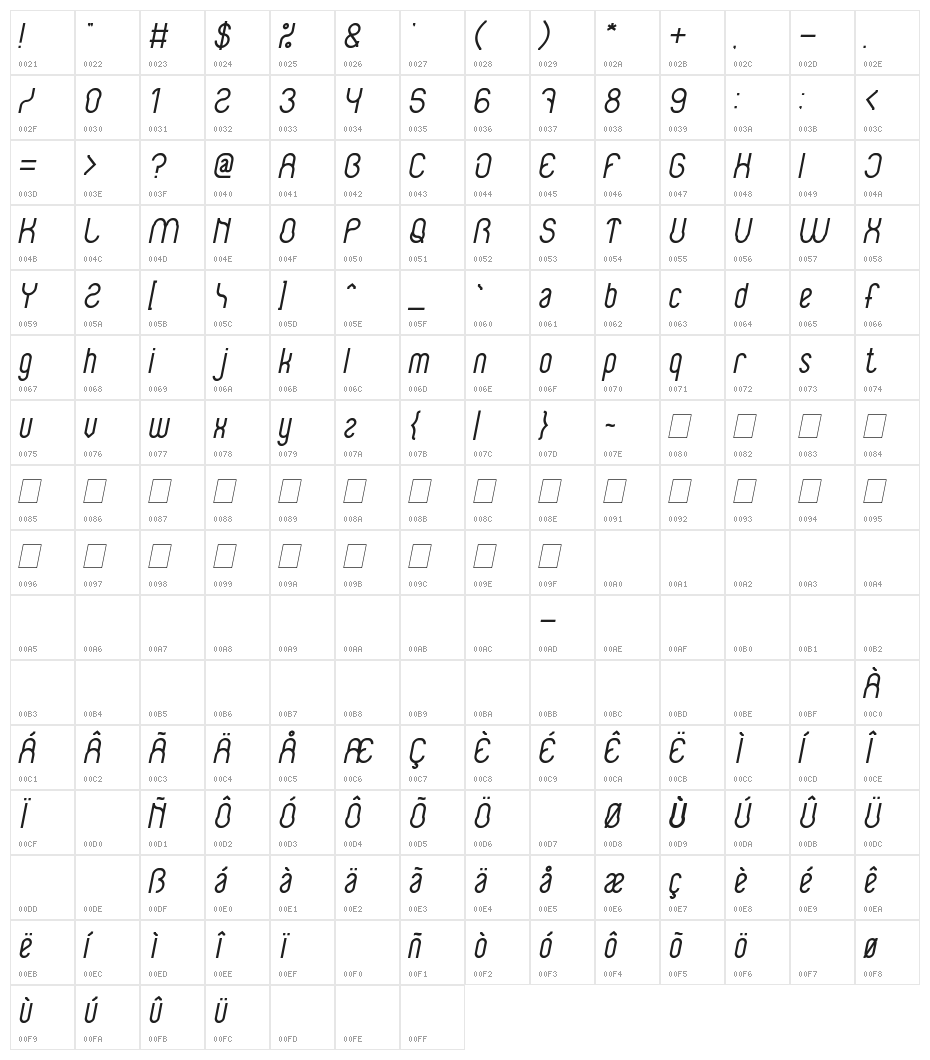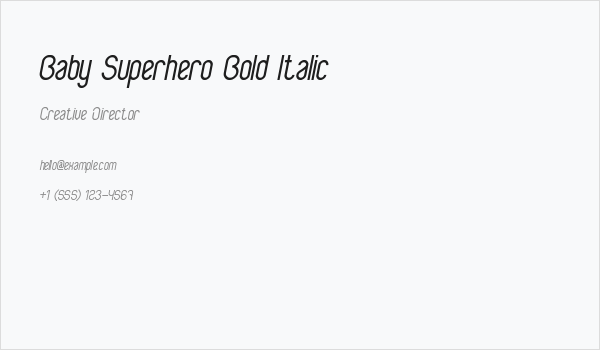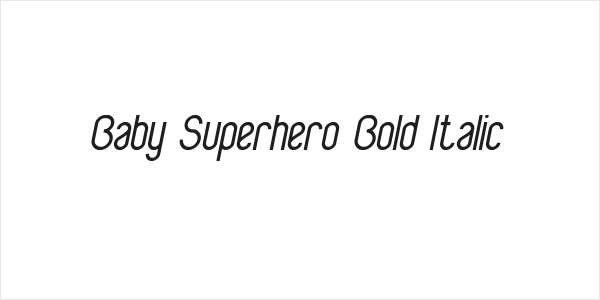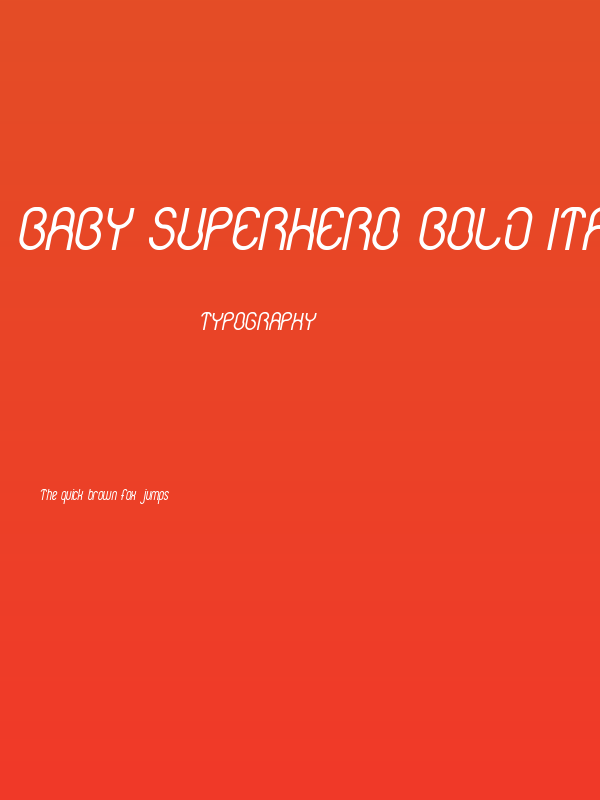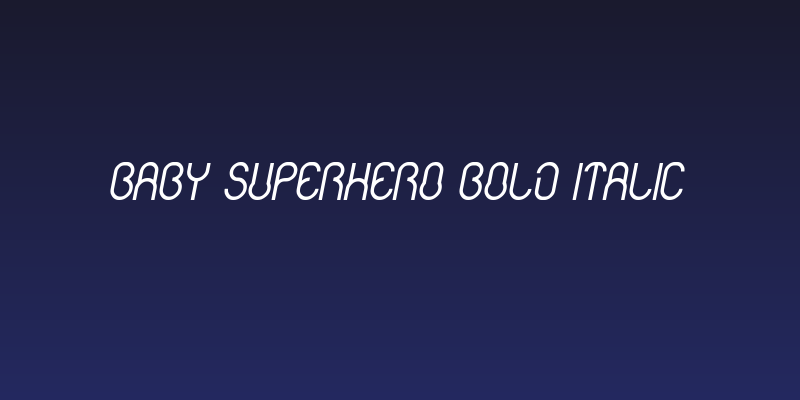
Baby Superhero Bold Italic Font
Baby Superhero Bold Italic Description
This font features a bold and italicized style with a modern and playful twist. The characters are slightly condensed, giving them a sleek and streamlined appearance. The uppercase letters have a unique curvature, particularly noticeable in the rounded edges, which adds a dynamic and energetic feel. The lowercase letters maintain a consistent flow, complementing the uppercase with their smooth transitions. Numbers and special characters are designed with the same boldness and italic slant, ensuring uniformity across all elements. The overall design is both eye-catching and versatile, making it suitable for a variety of creative projects.
| Proposed Projects | Ideal for comic book titles, children's book covers, playful branding, and dynamic posters. |